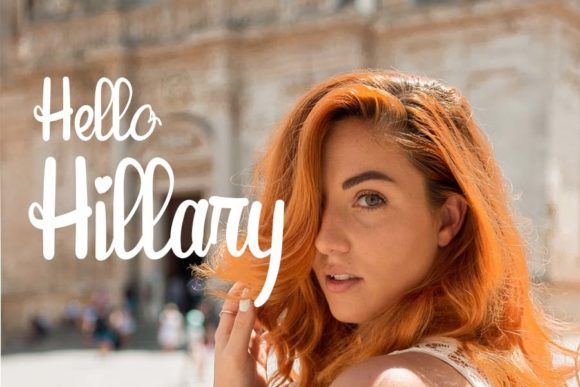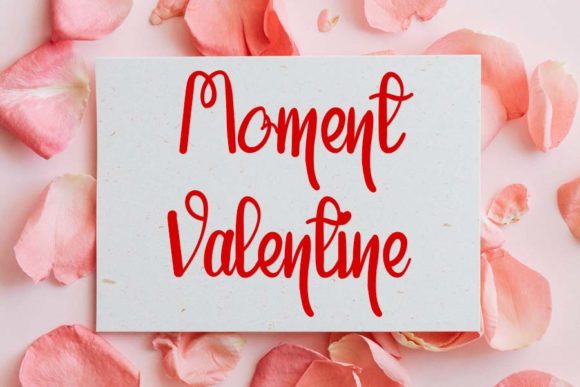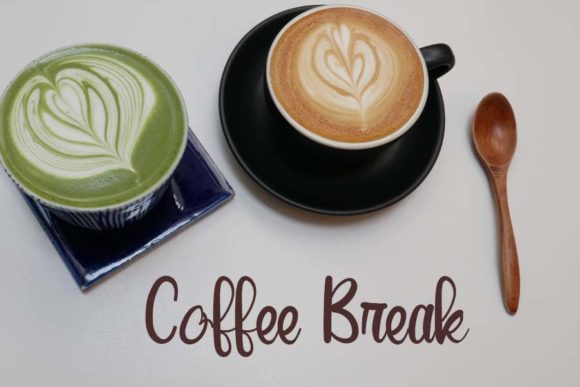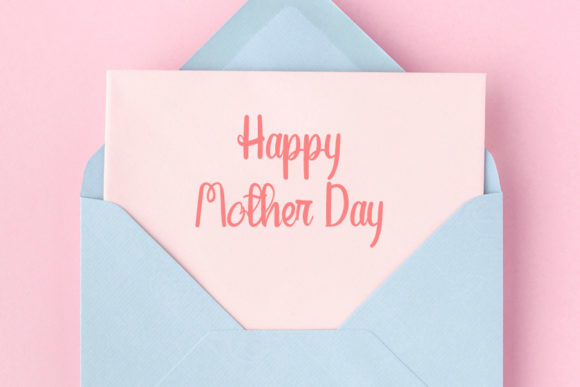
Introduction to History is True Font Font
Fonts play a crucial role in design, and the History is True Font font is a typeface that brings both character and versatility to any project. Whether you’re working on a branding project, a website, or a print design, the History is True Font font offers a unique style that can elevate your work.
βHistory is Trueβ is a romantic and sweet handwritten font.
It has casual yet elegant influences that can transform any of your lovely creations into true pieces of art .
Key Features of History is True Font Font
Why Choose History is True Font Font?
The History is True Font font is more than just a typeface β it’s a design tool that helps you communicate your message with style and clarity. Its unique character set and versatile design make it suitable for a wide range of applications, from elegant invitations to bold headlines.
With its carefully crafted letterforms and balanced proportions, the History is True Font font ensures readability and visual appeal across all mediums.
What makes History is True Font font special?
The History is True Font font stands out with its unique design, exceptional readability, and versatility across various design applications.